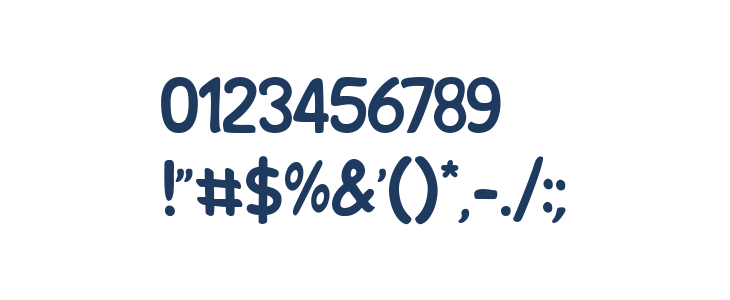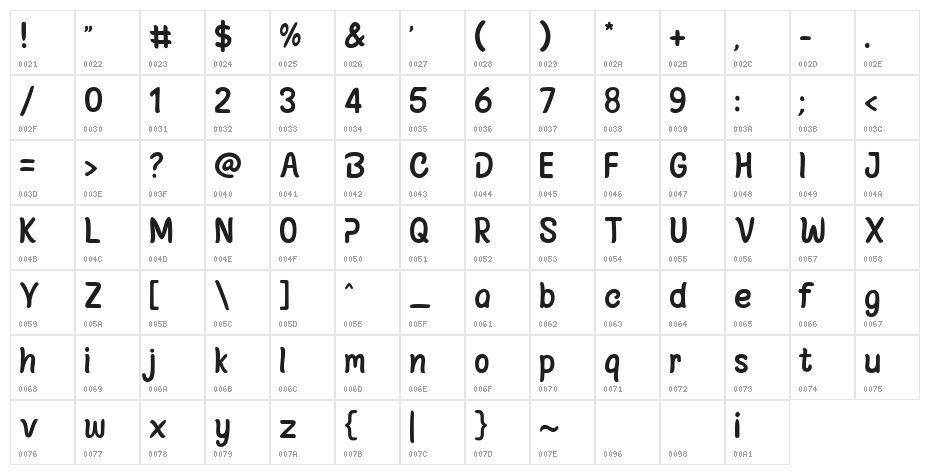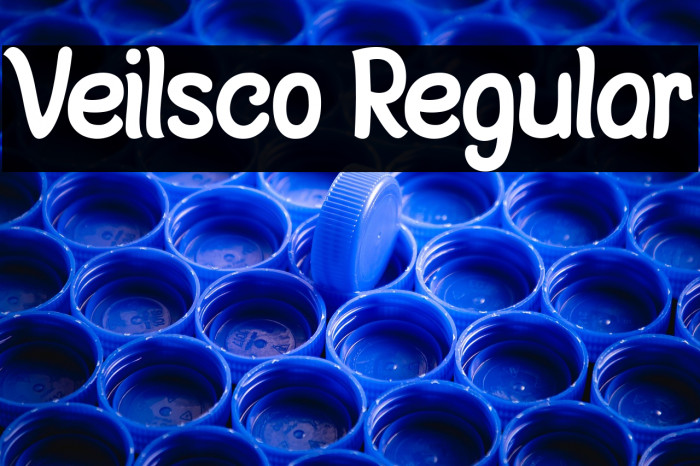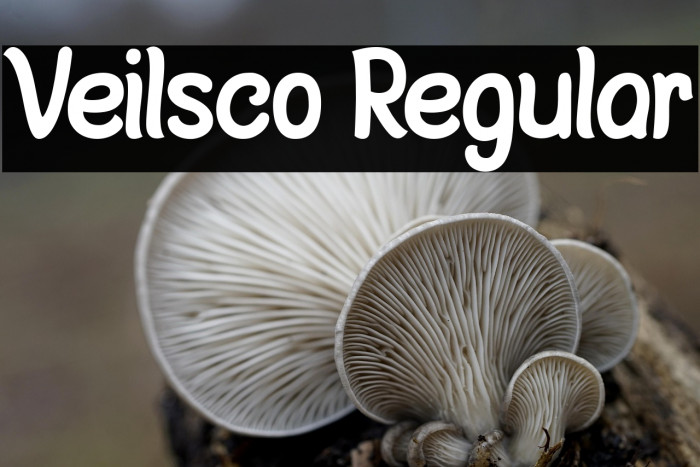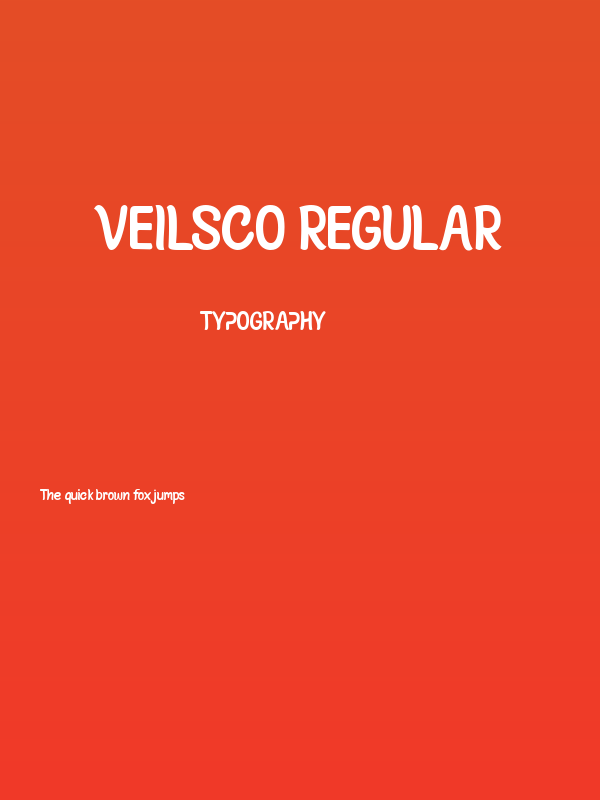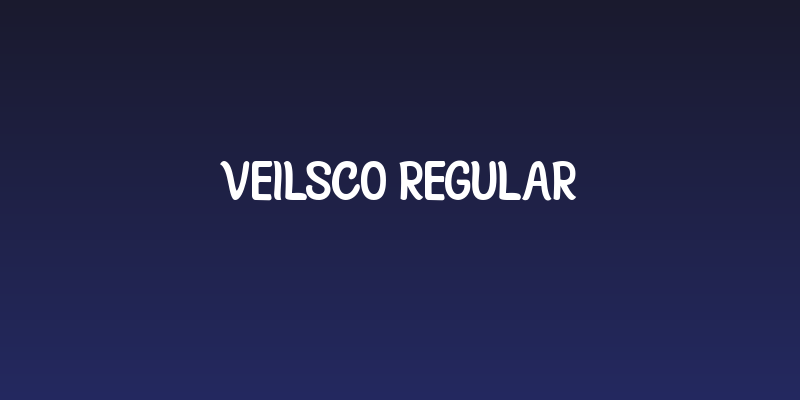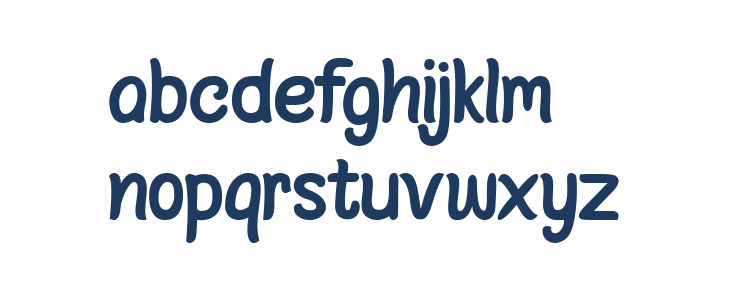
Veilsco Regular Font
Veilsco Regular Description
This font features a playful and bold style with rounded edges and a hand-drawn appearance. The characters are uniformly thick, giving it a consistent and cohesive look. The uppercase and lowercase letters maintain a friendly and approachable vibe, making it suitable for informal and creative projects. The numbers and special characters are designed to match the overall aesthetic, ensuring versatility in various applications. Its unique charm and readability make it an excellent choice for eye-catching designs.
| Proposed Projects | Ideal for children's books, playful branding, greeting cards, and creative posters. |